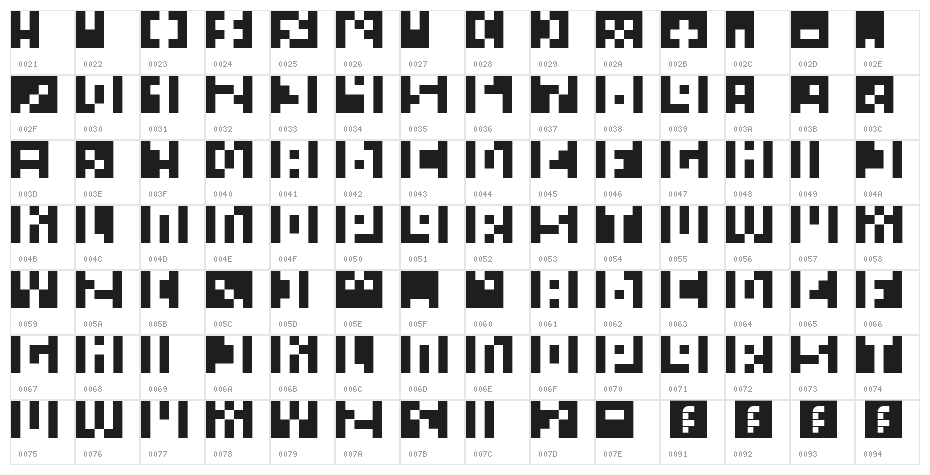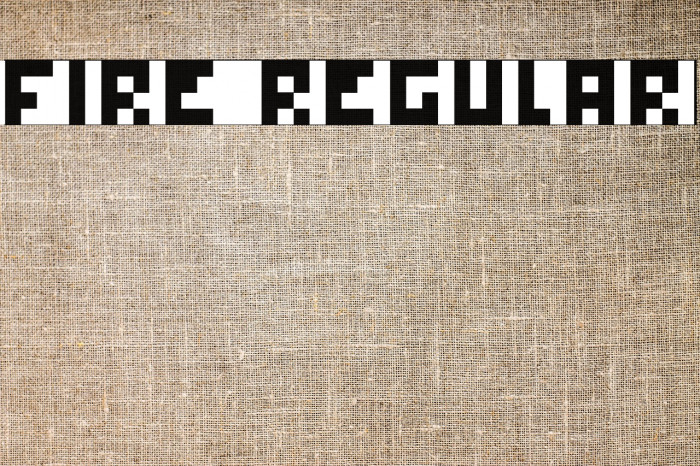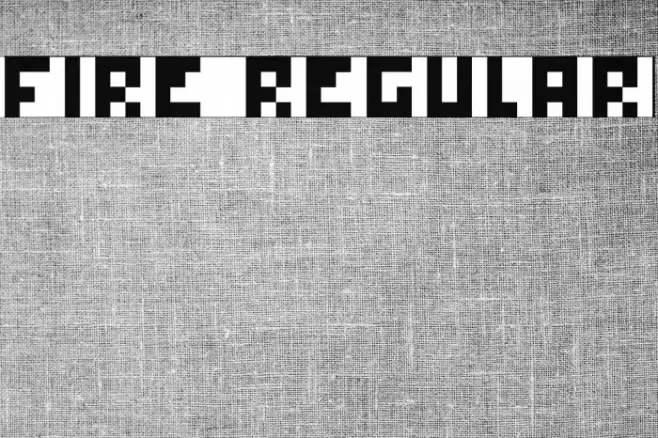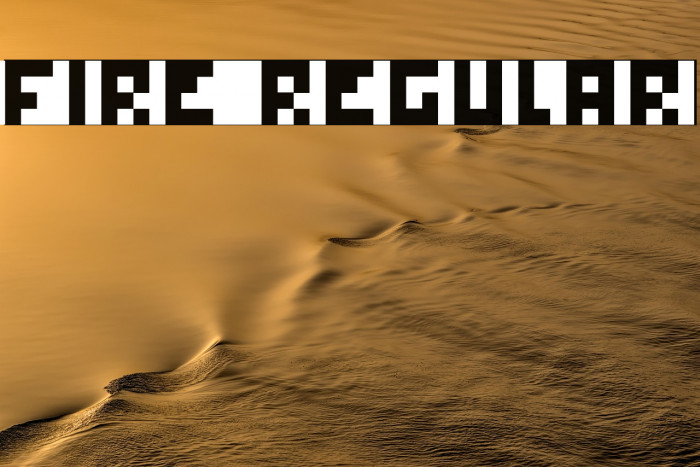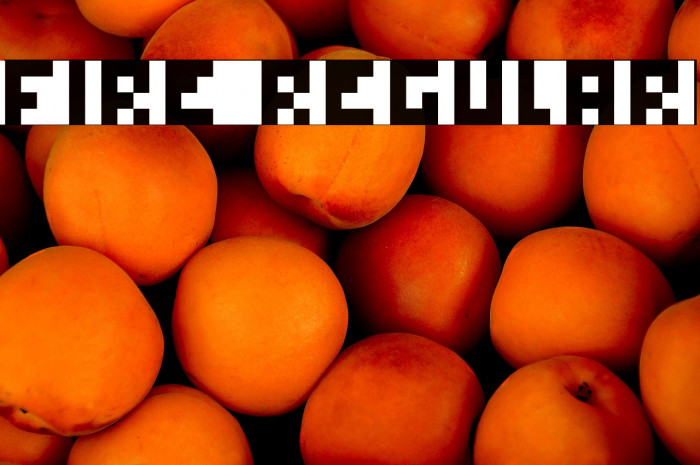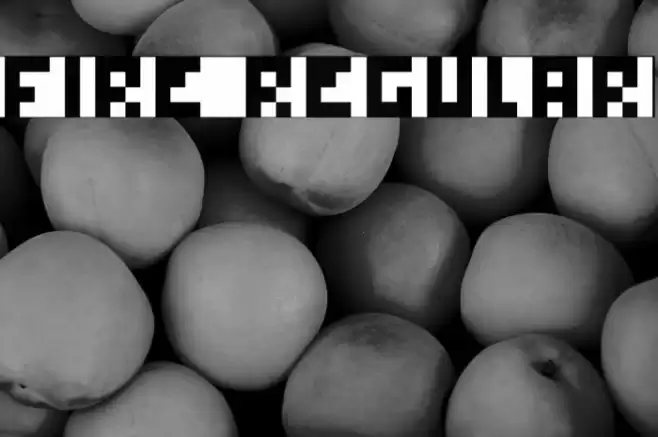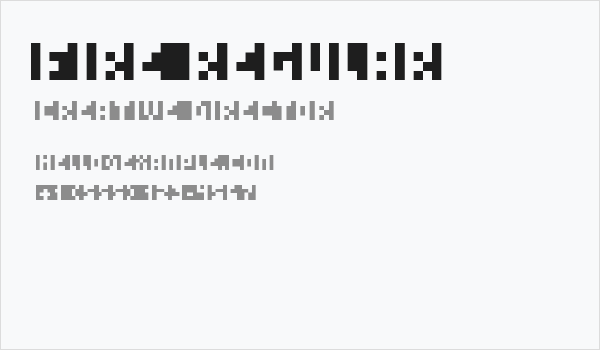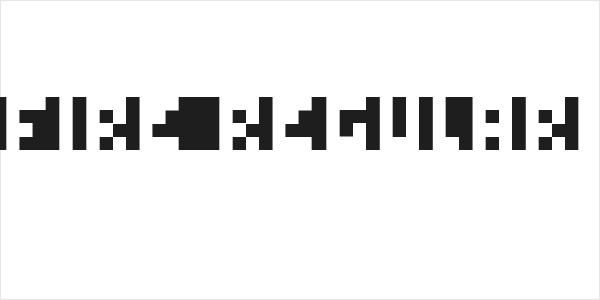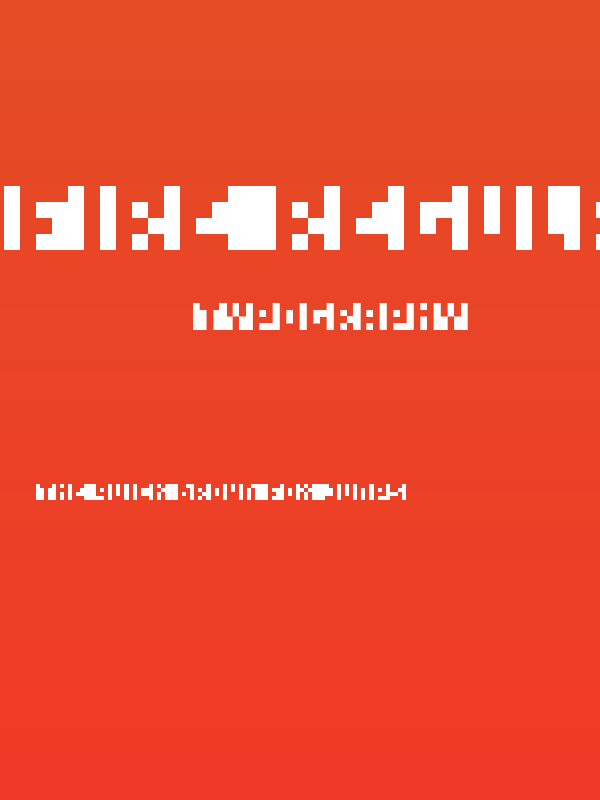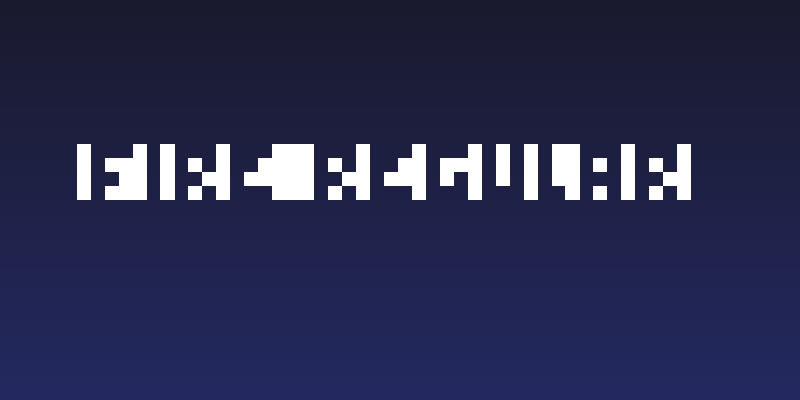
FIRE Regular Font
FIRE Regular Description
This font exhibits a highly pixelated, blocky design reminiscent of early digital or video game aesthetics. Each character is composed of a grid-like structure, giving it a distinctly retro and technological feel. The uniformity in height and width across all characters contributes to a monospaced appearance, although the characters themselves are not strictly monospaced. The bold, thick strokes ensure high visibility and readability, even at smaller sizes. The lack of curves and the emphasis on straight lines and right angles create a stark, modern look that is both eye-catching and functional.
Proposed ProjectsIdeal for video game design, digital art projects, retro-themed posters, and any creative work that requires a nostalgic or technological vibe.